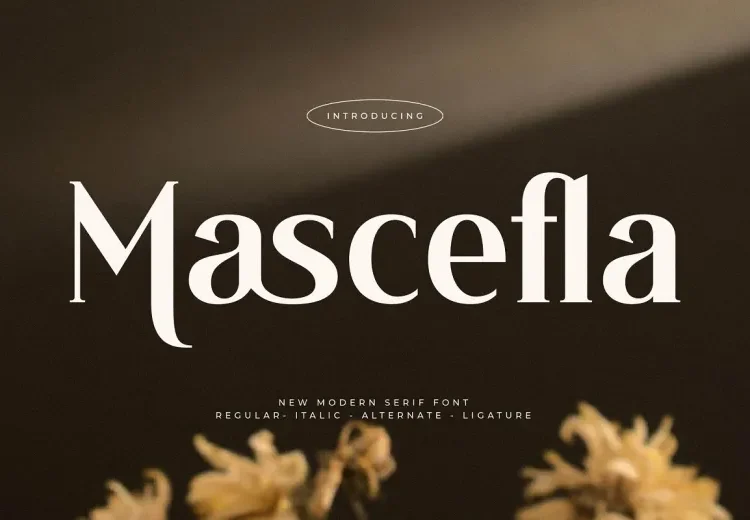
Mascefla Font
Introducing Mascefla Font – an elegant serif typeface designed to add a touch of sophistication and luxury to your projects.
Key Features of Mascefla Font:
• Elegant Serif Design: Features refined serifs and stylish details that enhance its classic and luxurious appeal.
• Versatile Application: Perfect for various uses, from branding to homeware designs.
Ideal Uses:
• Logos: Create memorable and high-end logos that stand out.
• Branding Designs: Elevate your brand identity with a touch of elegance.
• Homeware Designs: Ideal for product packaging, including mugs, bags, and T-shirts.
• Book Covers: Add a sophisticated look to your book covers.
• Name Cards & Invite Cards: Perfect for creating elegant name and invitation cards.
• Greeting Cards: Enhance the style of your greeting cards with a luxurious serif touch.
• Labels: Suitable for product labels that need to exude a high-end feel.
• Photography Watermarks: Add a refined touch to your photography with stylish watermarks.
• Special Occasions: Ideal for any project requiring a luxurious serif typeface.